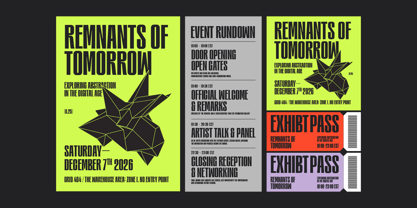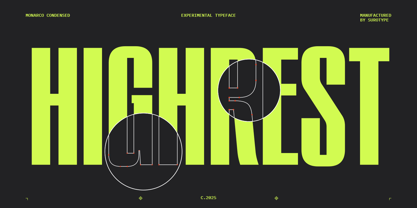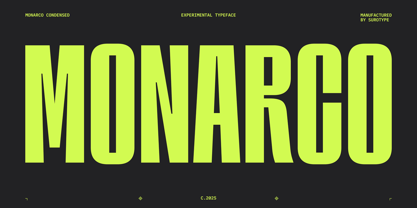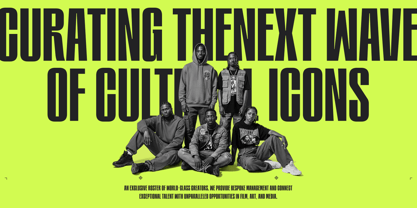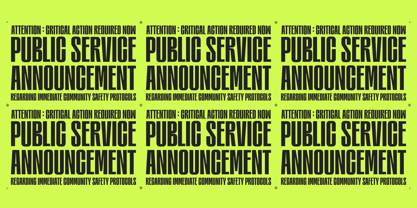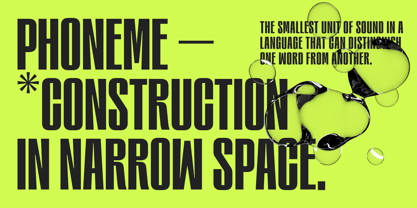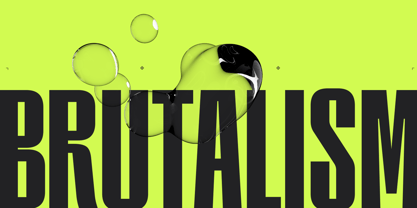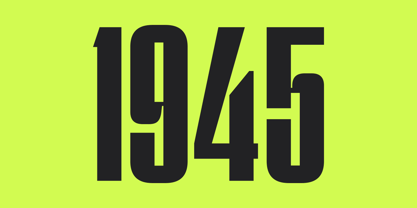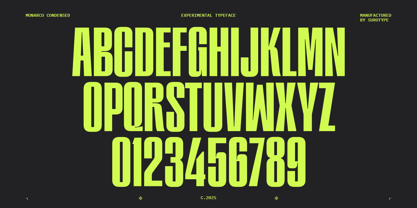
Monarco
by Surotype
The Monarco Font Family was designed by Adil Budianto and published by Surotype. Monarco contains 1 styles. More about this family
Monarco is a typeface designed for absolute visual dominance. This Condensed Bold Experimental font was born from the need for instant, uncompromising visual impact. With characters that are aggressively condensed and an exaggerated boldness, Monarco creates dense text blocks with incredible visual weight. Key Features Brutal Impact: Monarco is ideal for punchy headlines, titles that must dominate the space, or branding that requires a harsh and edgy aesthetic. Aggressive Condensed Effect: Its resulting density makes it perfect for posters, album covers, and merchandise sporting a modern Trap or Brutalism style. Geometric Experimentalism: Despite its thickness, Monarco maintains sharp, controlled geometric shapes, delivering a balance between visual chaos and precision
Designers: Adil Budianto
Foundry: Surotype